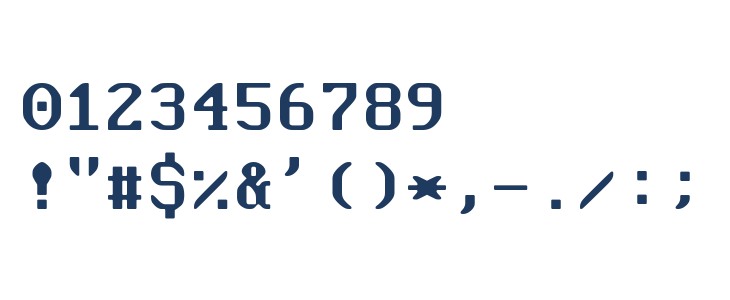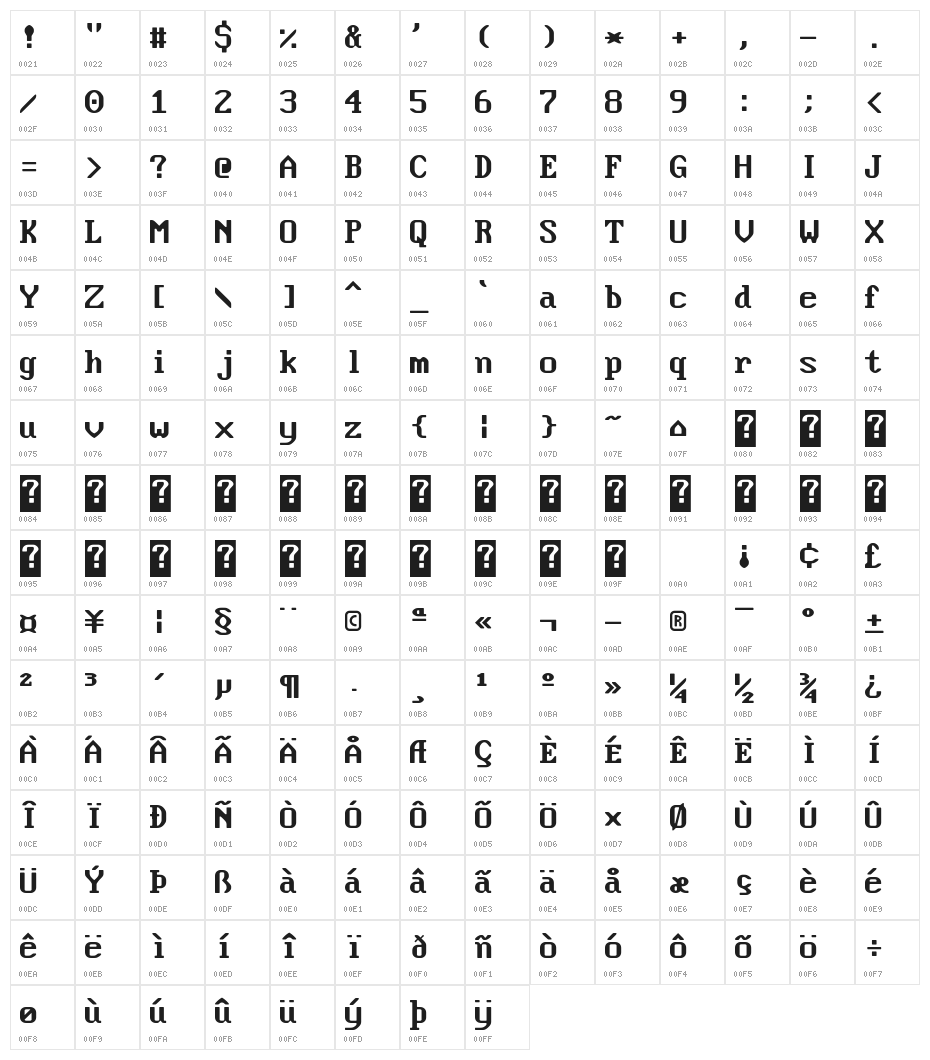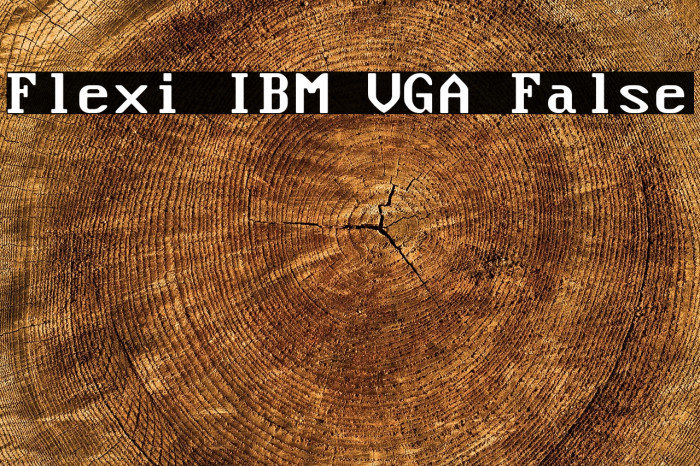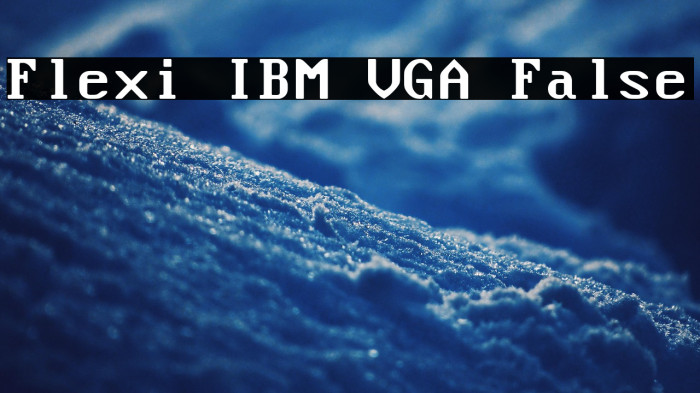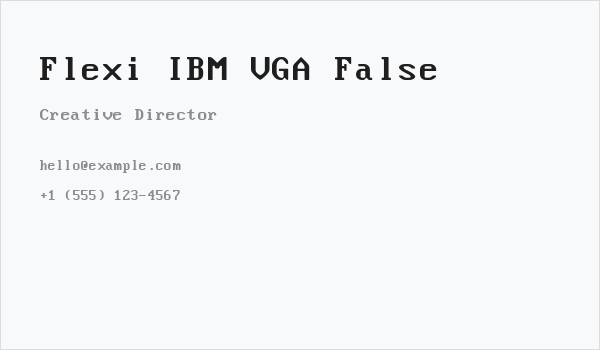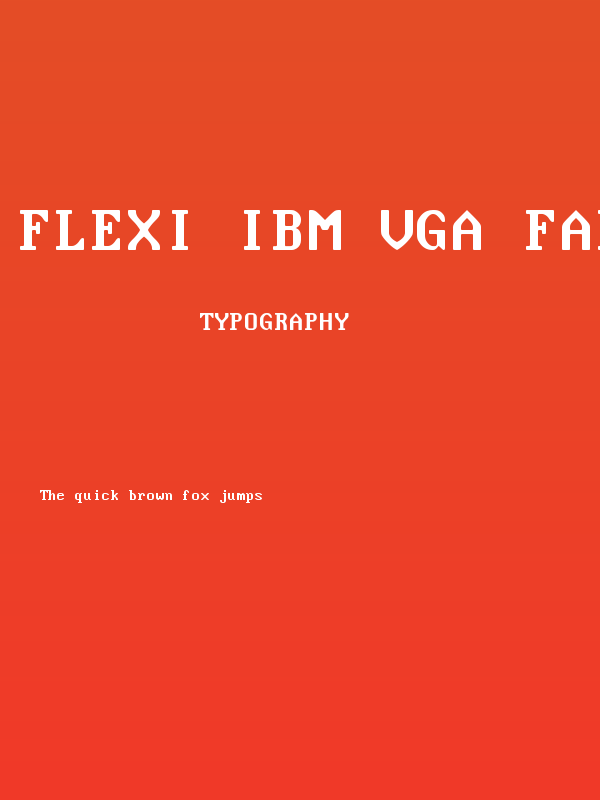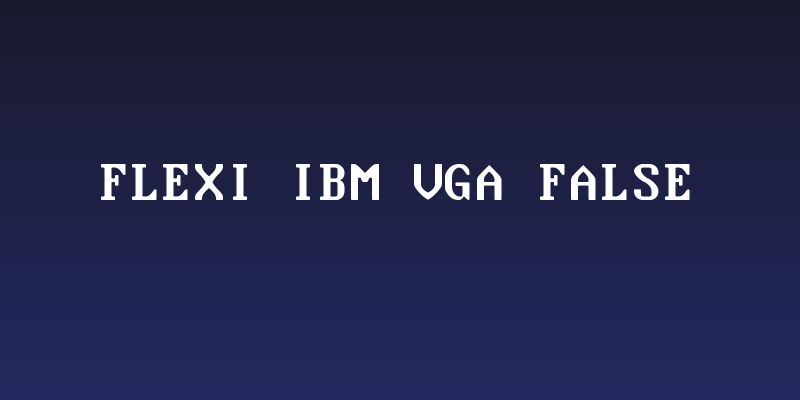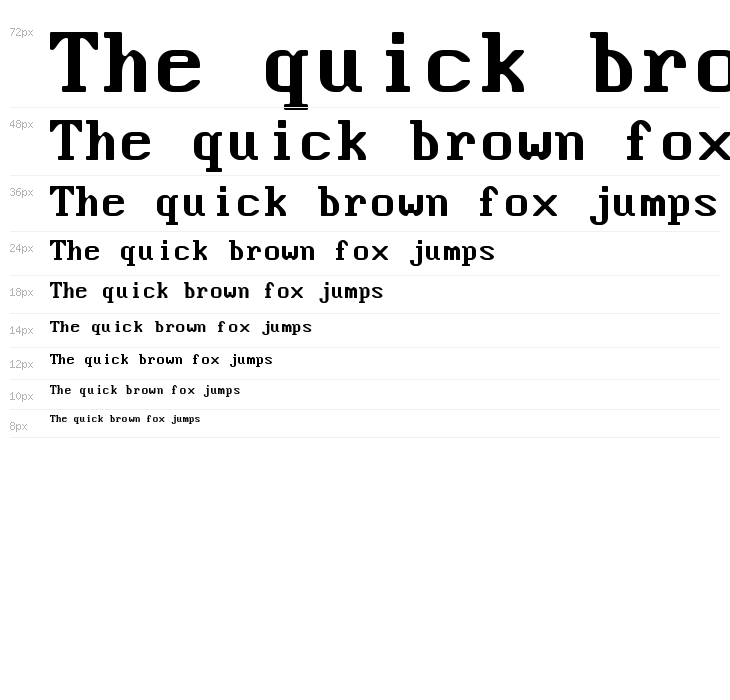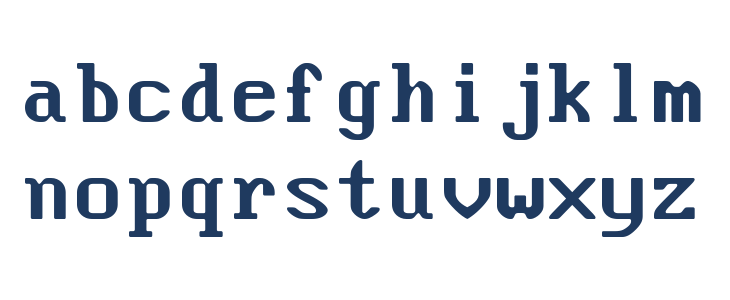
Flexi IBM VGA False Font
Flexi IBM VGA False Description
This font features a bold and structured design with a strong presence. The characters are well-defined with a slight geometric influence, giving them a modern and technical appearance. The uppercase letters are uniform in height, while the lowercase letters maintain a consistent baseline, providing a balanced look. The numerals are clear and distinct, ensuring readability. Special characters are designed to match the overall style, making them suitable for various applications. The font's clean lines and precise angles make it ideal for digital displays and interfaces.
| Use Case | Headlines, Digital displays, Branding |
| Proposed Projects | Ideal for digital interfaces, technical documentation, and branding for tech companies. |